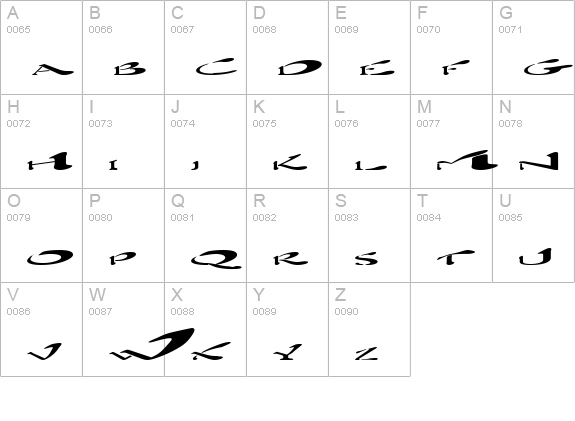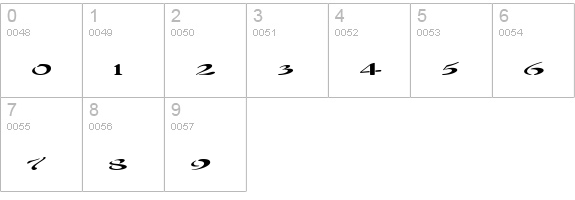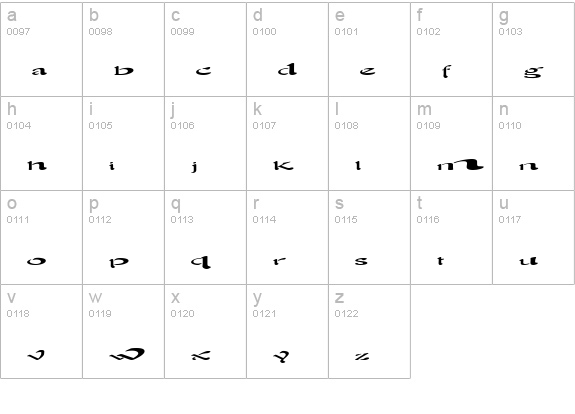
Blown Away font is a stunning display typeface that exudes a sense of dynamism and energy. With its bold strokes and unique design, this font is perfect for making a statement in your projects. The edgy and modern look of Blown Away font will surely captivate your audience and leave a lasting impression. The best part? Blown Away font is completely free to download at FontsMarket.com. Whether you're working on a poster, logo, or website design, this font will add a touch of excitement and creativity to your creations. Don't miss out on the opportunity to elevate your designs with the striking Blown Away font, available for free at FontsMarket.com.